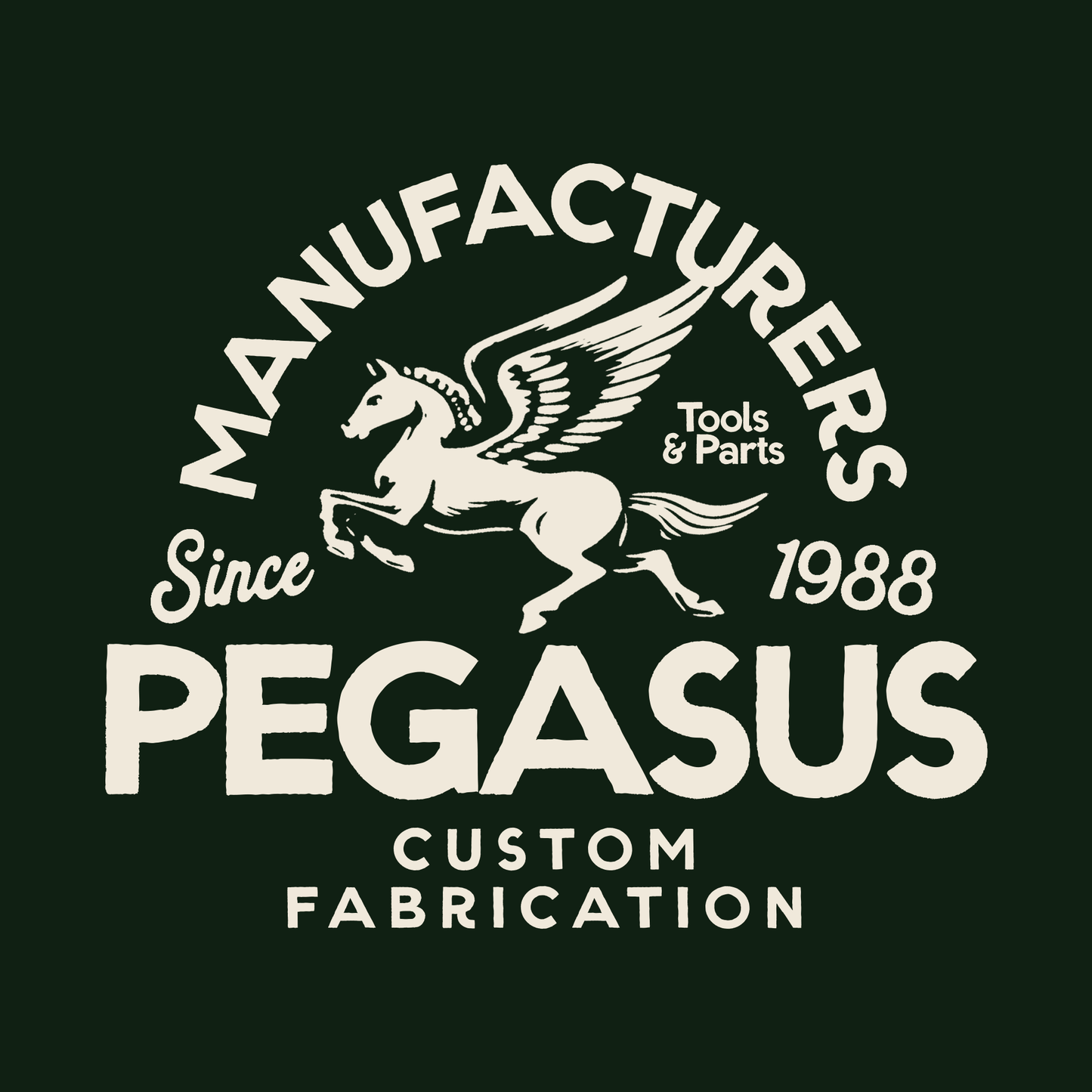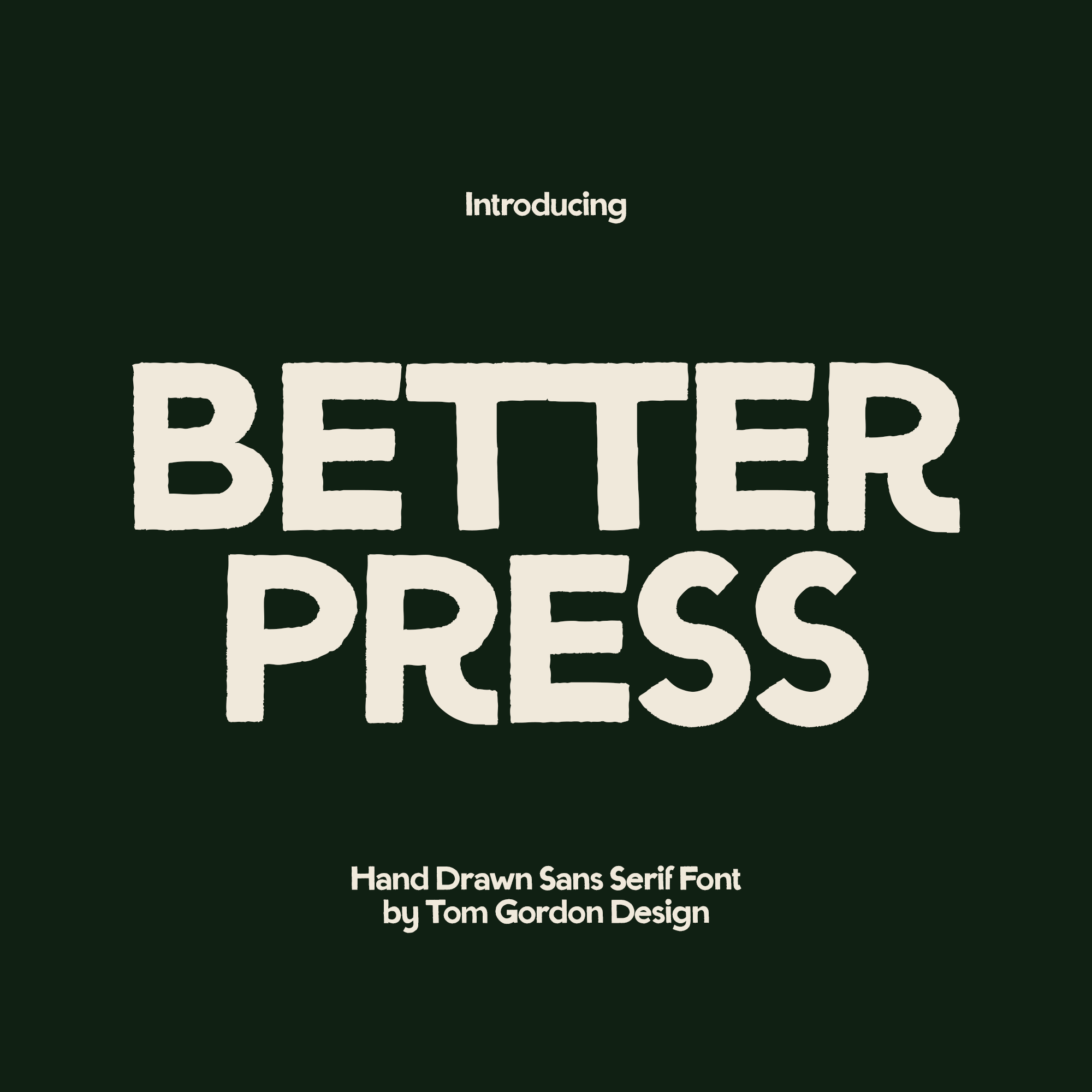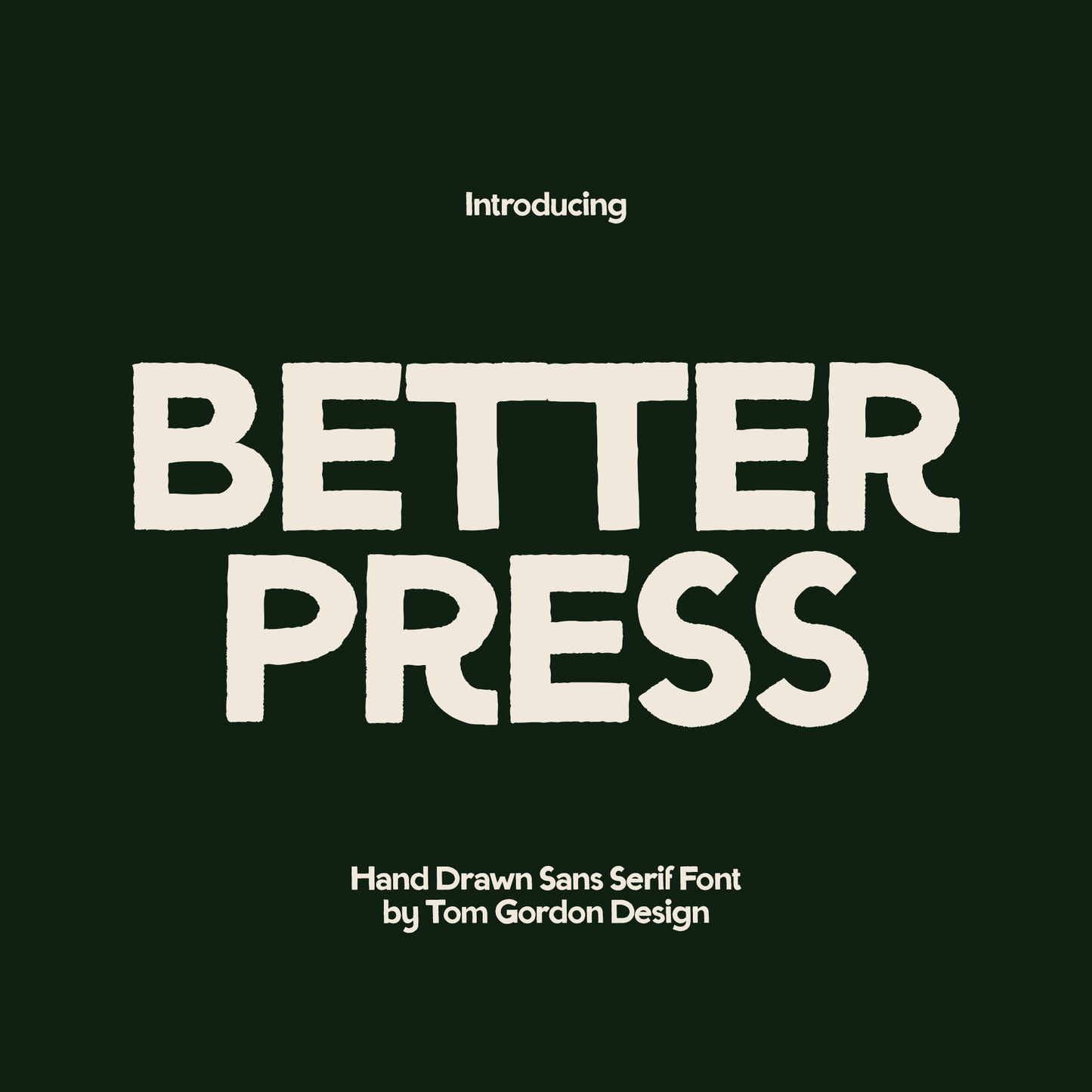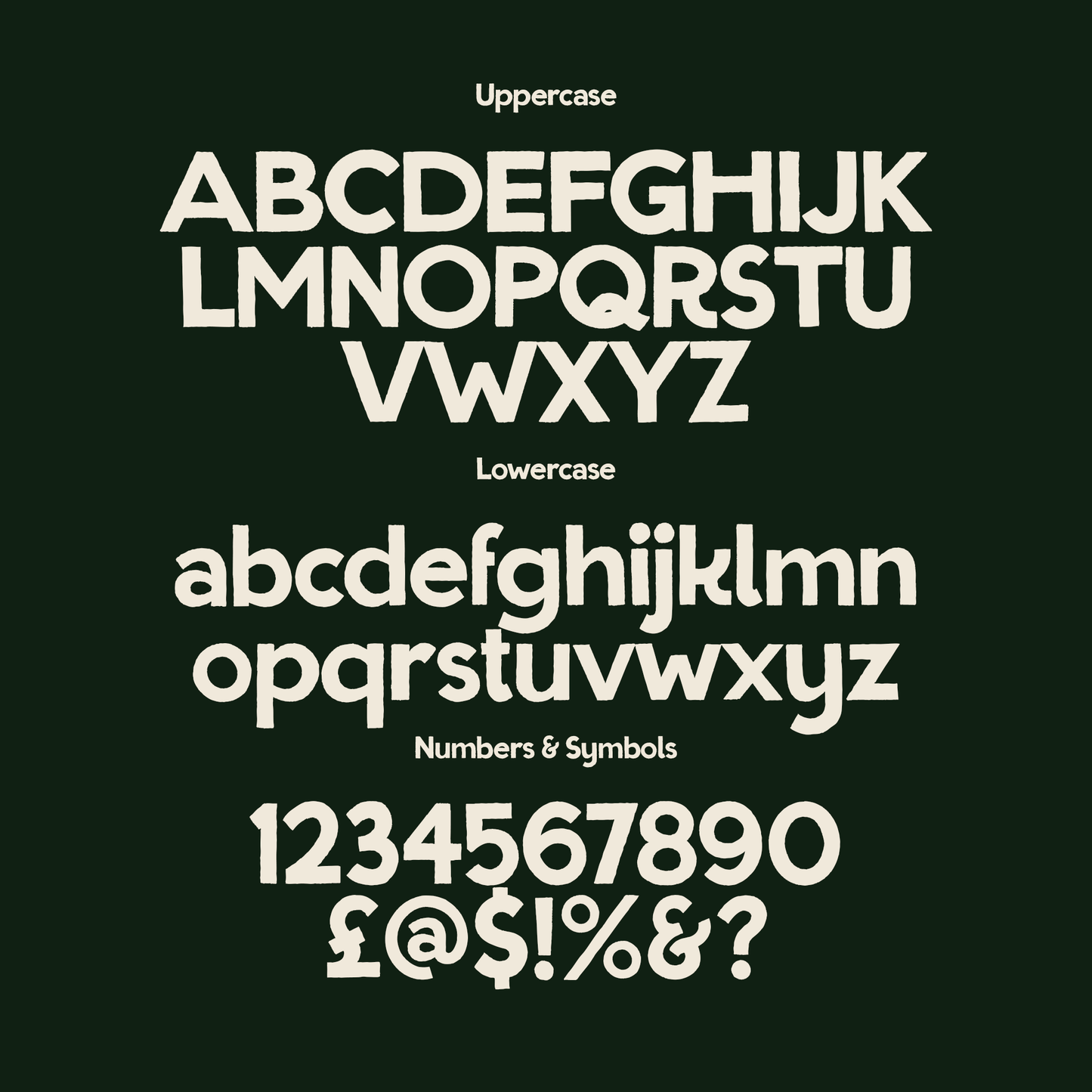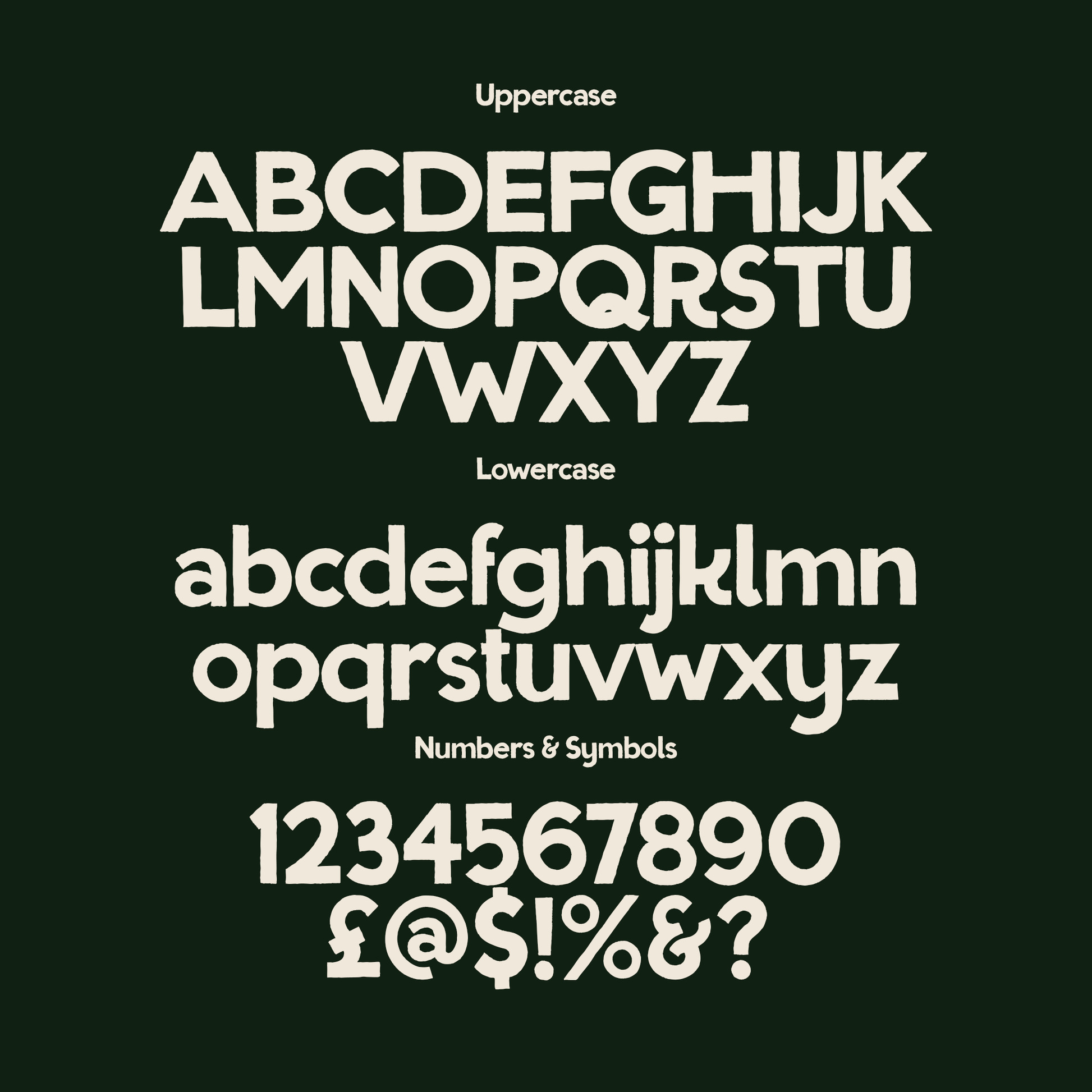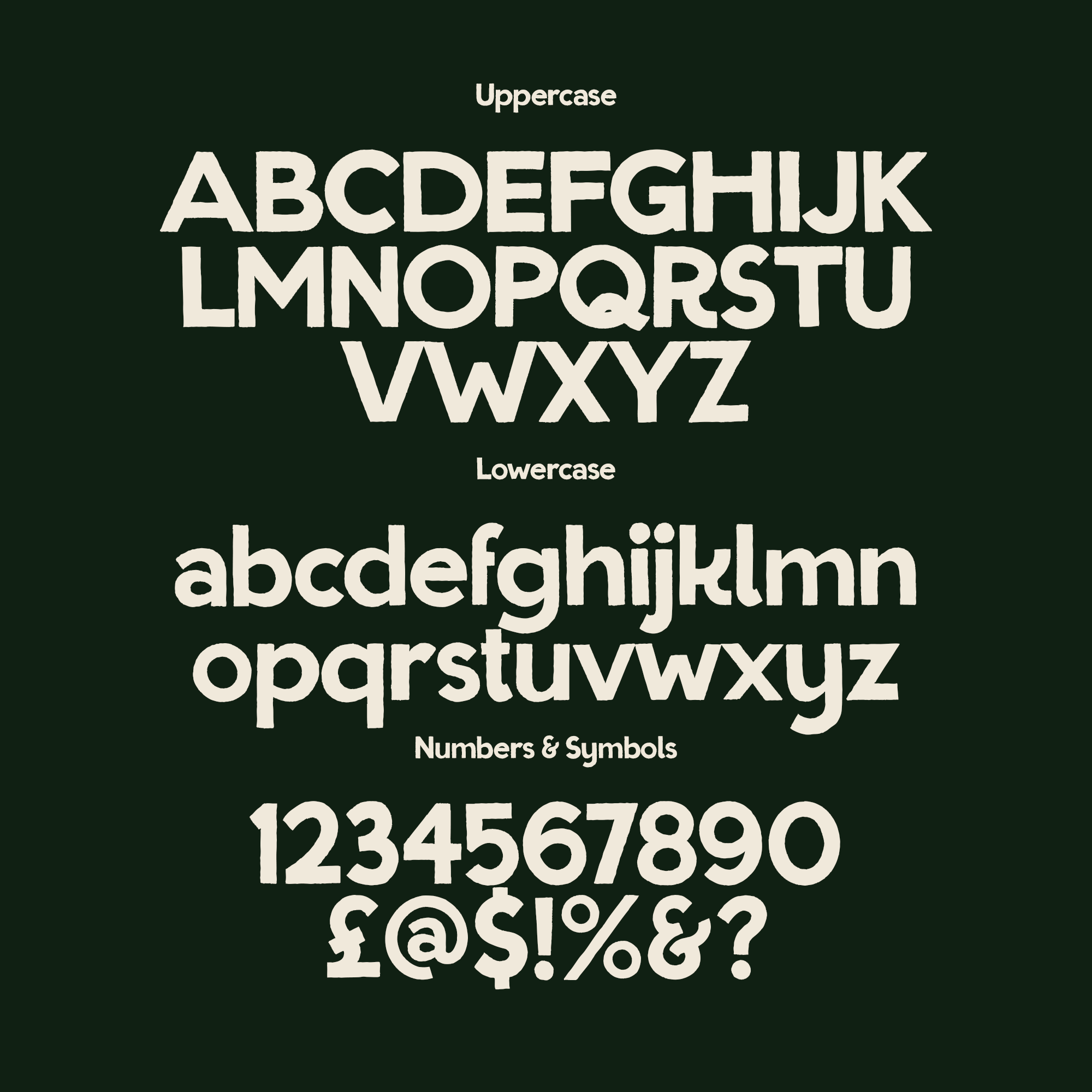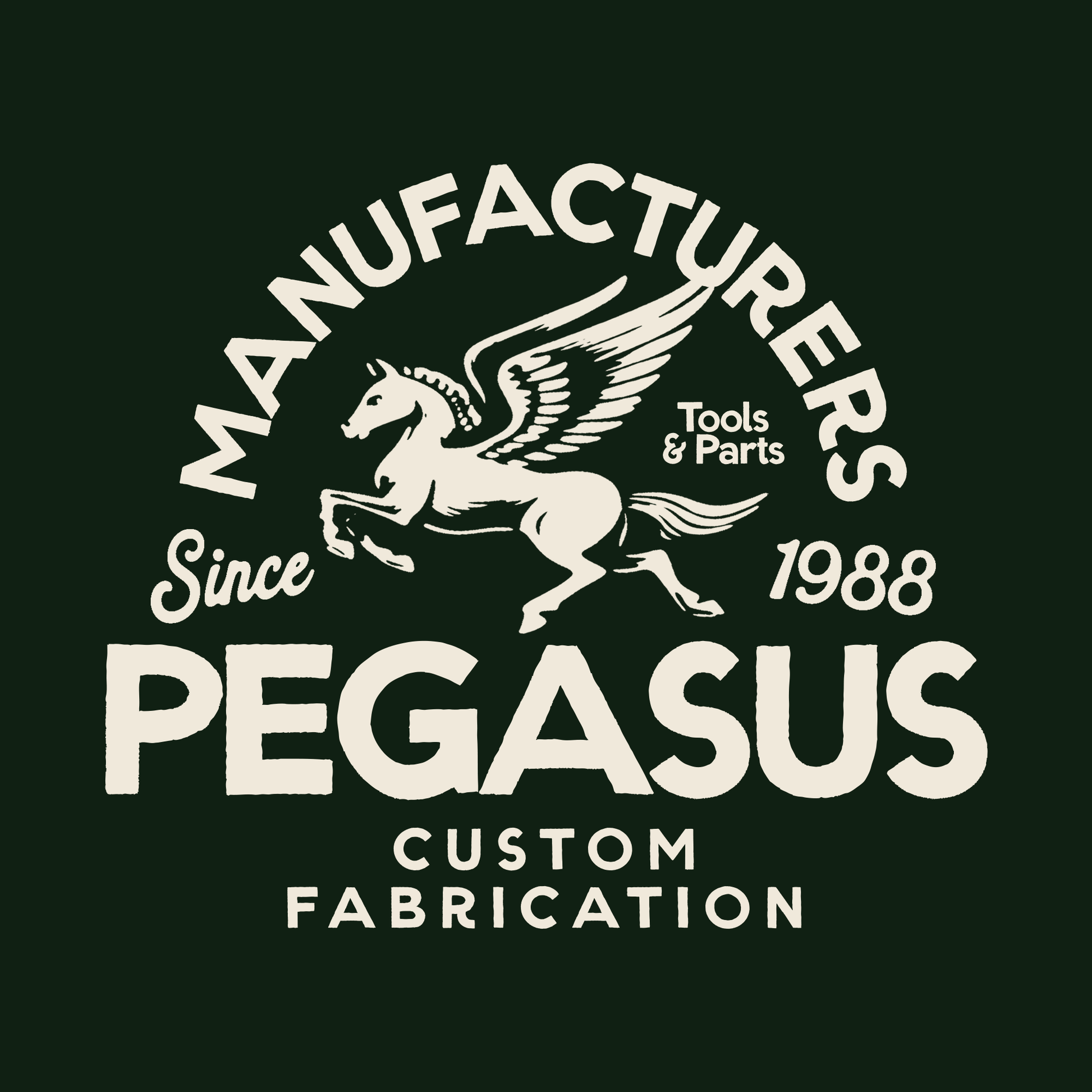
Introducing "Betterpress": A Hand Drawn Sans Serif Font
Inspired by old letter press typefaces Betterpress is my hand drawn sans serif font designed with bold vintage lovers in mind. Perfect for bold vintage style designs for merchandise, posters and much more.
Ideal for:
Logos
Merchandise
Posters
Packaging
And much more!
Full Uppercase & Lowercase alphabet
Numerals and essential punctuation